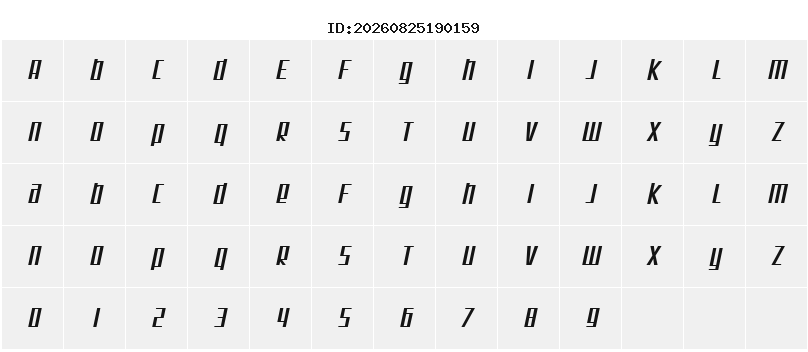
SF Square Root Extended Preview
• Font Name: SF Square Root Extended
• Font Style: Oblique
• Full Font Name: SF Square Root Extended Oblique
• Designer: ShyFonts Type Foundry
About SF Square Root Extended.ttf
SF Square Root Extended.ttf is a modern, elegant sans-serif font designed for ultimate readability and visual harmony. Perfect for branding, headlines, web design, and print materials.